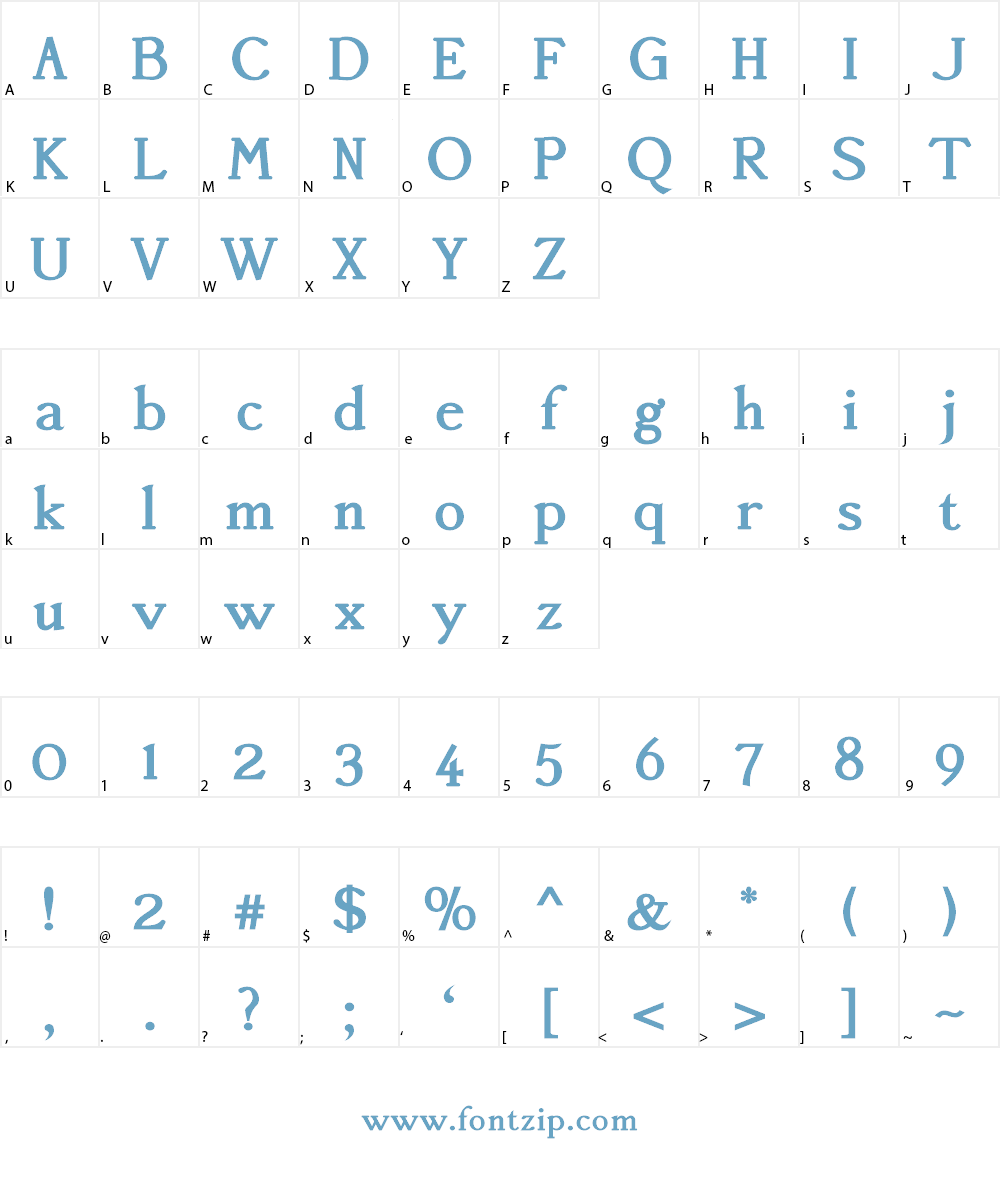
This collection is particularly suitable for text, display, or presentations neat and stylish.
Can serve as an alternative to fonts such as Garamond, Galliard, Horley Old Style, Sabon, and Bembo.